Learning how to improve readability without changing your font is useful when you already have a typeface that fits your brand, but the text still feels difficult to read. In many cases, the problem is not the font itself. Font size, spacing, line length, contrast, alignment, and hierarchy can have a much bigger impact on how comfortable the content feels.
This is especially important for websites, landing pages, portfolios, packaging, and editorial layouts. A good font can still perform poorly when it is too small, too tightly spaced, or placed in a crowded layout. Before replacing the typeface, try improving the way it is used.
1. Increase the Font Size
One of the simplest ways to improve readability is to increase the text size. Body copy that looks elegant at a small size may become tiring to read, especially on mobile screens. For websites, a body size around 16 to 20 pixels is often a useful starting point, although the ideal size depends on the font. Instead of judging the text only in a design editor, test it at the actual size visitors will see.
2. Adjust the Line Height
Line height controls the vertical space between lines of text. If the lines are too close together, paragraphs can feel dense and difficult to follow. If the spacing is too wide, each line may feel disconnected from the next. A line height around 1.4 to 1.7 times the font size often creates a comfortable rhythm for body text. The goal is to give the eyes enough room to move from one line to another without losing their place.
3. Keep Line Length Comfortable
Long lines of text can reduce readability because the eye has to travel too far from left to right. When readers reach the end of a very wide line, finding the beginning of the next one becomes more difficult. On websites, try limiting paragraph width instead of stretching text across the entire screen. A narrower content column usually feels easier to scan and can make the same font appear more polished.
4. Improve Letter Spacing Carefully
Letter spacing, also known as tracking, can change how open or crowded a font feels. Slightly increasing the spacing can help uppercase headlines or compact fonts breathe more easily. However, too much spacing can separate letters so strongly that words become harder to recognize. Body text usually needs only subtle adjustments, while short headings can handle more noticeable spacing. Test the result with real sentences instead of individual words.
5. Strengthen the Contrast
A readable font can still disappear when the contrast is weak. Light gray text on a white background may look minimal, but it often becomes difficult to read on smaller screens or in bright environments. Use enough contrast between the text and background, especially for body copy, buttons, prices, and important information. If text appears over photography, consider adding a subtle overlay or placing the copy inside a cleaner area of the image.
6. Create a Clear Typography Hierarchy
Readability also depends on knowing what to read first. If headings, body text, captions, and buttons all look similar, visitors need more effort to understand the structure. Use differences in size, weight, and spacing to create a clear hierarchy. The main heading should attract attention first, followed by subheadings and supporting text. If you are working on a website, Font Pairing for Websites That Need a Clear Visual Hierarchy offers more practical ideas for organizing different levels of information.
7. Break Long Paragraphs Into Smaller Sections
Large blocks of text can feel intimidating even when the font itself is highly readable. Keep paragraphs focused and avoid combining too many ideas in one section. Shorter paragraphs create more visual breathing room and make it easier for readers to scan the page. You can also use subheadings to separate topics, especially in articles, product descriptions, and landing pages.
8. Use Font Weight With Purpose
Changing font weight can improve readability without replacing the font family. A regular weight may work well for paragraphs, while medium or semibold styles can highlight headings, labels, or important phrases. Avoid using very thin weights for small text because the strokes may disappear on some screens. At the same time, do not make every line bold, because too much emphasis removes the hierarchy.
9. Improve Alignment and Layout
Text alignment can affect how naturally the eye follows the content. Left-aligned paragraphs are often easier to read in languages that move from left to right because each line starts from the same position. Centered text can work well for short headlines or quotes, but long centered paragraphs may become tiring. Also pay attention to margins and padding. Text that sits too close to the edge of a screen or container can feel cramped even when the typeface is good.
10. Test the Design on Real Devices
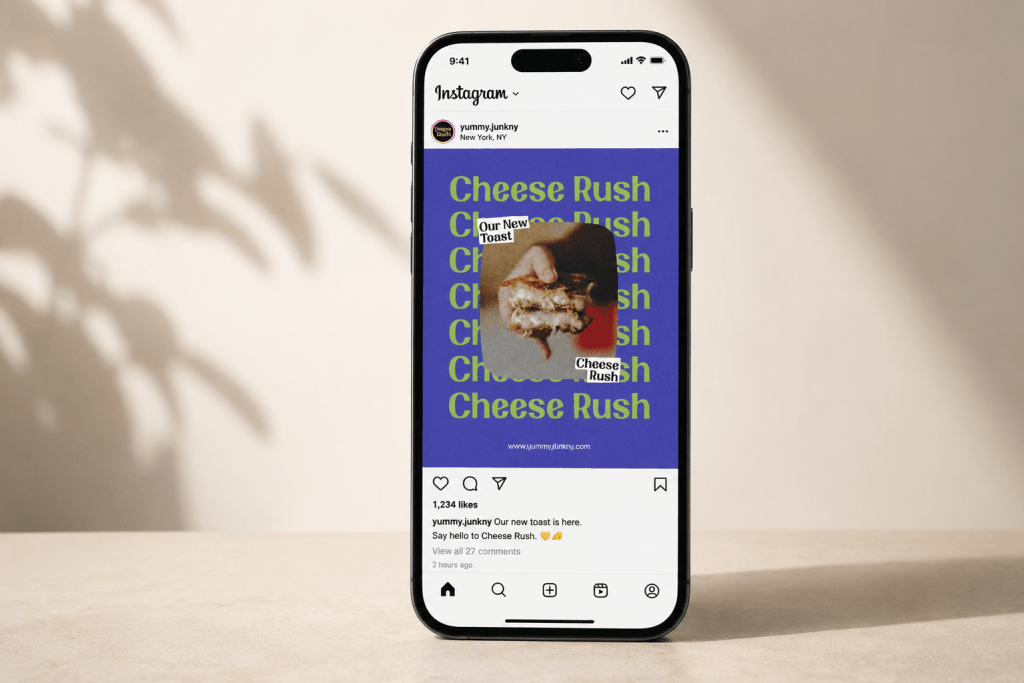
A layout that looks comfortable on a large monitor may behave very differently on a smartphone. Always test typography on desktop, tablet, and mobile screens before publishing. Check whether the font size remains comfortable, whether headings wrap naturally, and whether buttons stay easy to read. Printed materials should also be tested at actual size because zoomed-in previews can hide readability problems.